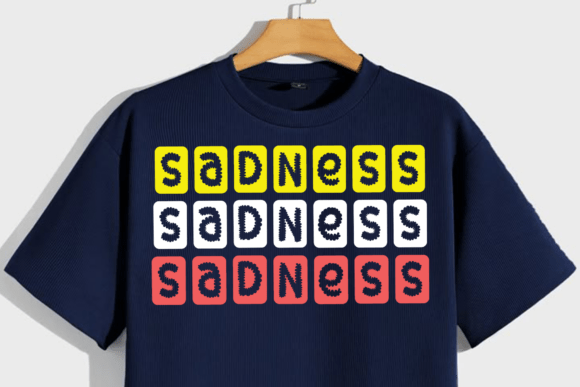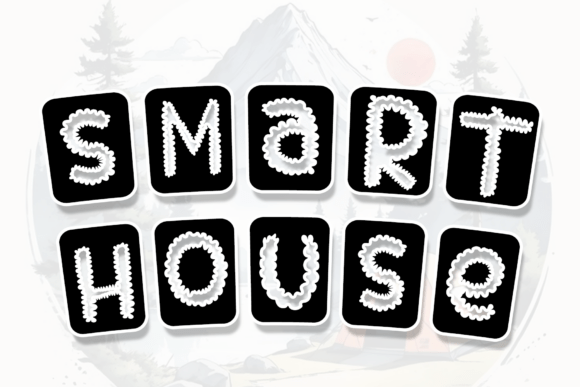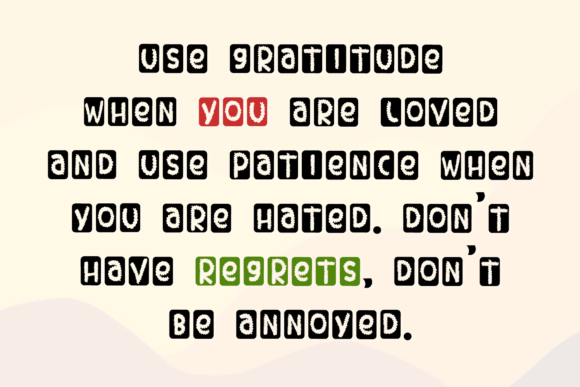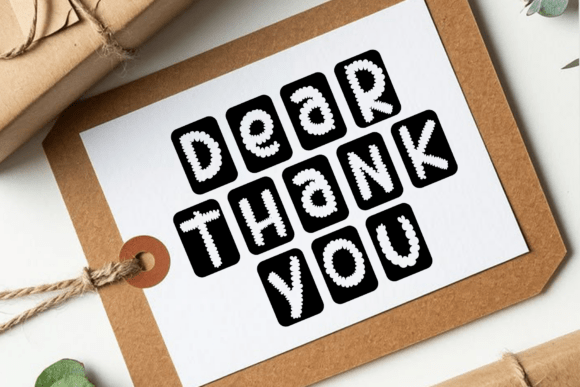
Introducing Five Colors Font: A Timeless Handwritten Delight
In the world of typography, a well-crafted font can elevate a design from ordinary to extraordinary. For designers and crafters seeking a unique and beautiful touch, the Five Colors Font is an exceptional choice. This lovely and timeless handwritten font is perfect for creating eye-catching logos, branding, and quotes that capture attention and leave a lasting impression.
The Beauty of Five Colors Font
What sets Five Colors Font apart is its distinctive and artistic approach to typography. Every letter in this font has been carefully crafted to possess a unique and beautiful touch, making each character a masterpiece in its own right. This attention to detail ensures that your designs stand out with a personal and handmade feel, ideal for projects that require a touch of elegance and sophistication.
Five Colors Font is incredibly versatile, making it suitable for a wide range of design applications. Whether you’re creating a logo, crafting a brand’s identity, or designing inspirational quotes, this font provides the perfect blend of style and readability. Its handwritten nature adds a personal touch to any project, allowing designers to convey their message with warmth and authenticity.
For businesses and entrepreneurs looking to establish a strong brand presence, Five Colors Font offers a unique opportunity to create memorable logos and branding materials. The font’s distinctive style ensures that your brand stands out in a crowded marketplace, helping to build recognition and foster a deeper connection with your audience.
Enhancing Quotes and Typography Projects
Typography projects, especially those featuring quotes, benefit greatly from the use of a beautiful and expressive font. Five Colors Font brings a level of sophistication and elegance to quotes, making them more impactful and shareable. Whether you’re designing for social media, print, or digital platforms, this font ensures that your typography projects are visually stunning and engaging.
Why Choose Five Colors Font?
- Unique and Beautiful Touch: Each letter is uniquely designed, offering a one-of-a-kind look that sets your designs apart.
- Timeless Appeal: The handwritten nature of the font gives it a classic feel that never goes out of style.
- Versatility: Suitable for a wide range of design projects, from logos and branding to quotes and more.
- Ease of Use: Designed to be user-friendly, making it easy to incorporate into your design workflow.
Tips for Using Five Colors Font
- Experiment with Colors: Take advantage of the font’s name and incorporate multiple colors into your design to create a vibrant and dynamic look.
- Mix and Match: Don’t be afraid to combine Five Colors Font with other fonts to create a unique and visually appealing contrast.
- Pay Attention to Spacing: Handwritten fonts can sometimes be intricate. Ensure that your design has adequate spacing to maintain readability and aesthetic balance.
Five Colors Font is a beautiful and versatile handwritten font that offers designers and crafters a unique tool for creating stunning designs. Its timeless appeal, combined with its distinctive and beautiful touch, makes it an excellent choice for a wide range of projects. Whether you’re designing logos, branding materials, or typography projects, Five Colors Font is sure to bring your designs to life.